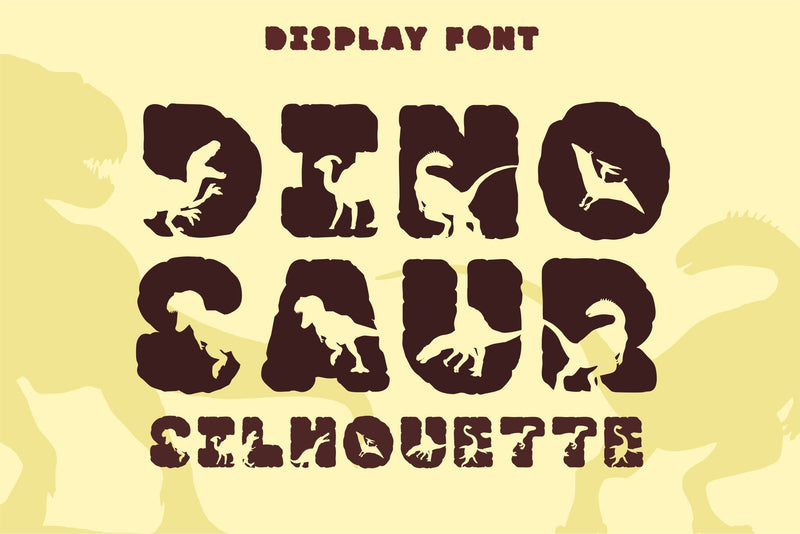
Dinosaur Silhouette Font
Dinosaur Silhouette is a cool and bold decorative font, featuring dinosaurs on each character. Whether you are using it for cartoon-related designs, children’s games, quotes, titles, brand names, book covers, posters, or just any creation that requires a touch of beauty, this font is a great choice.